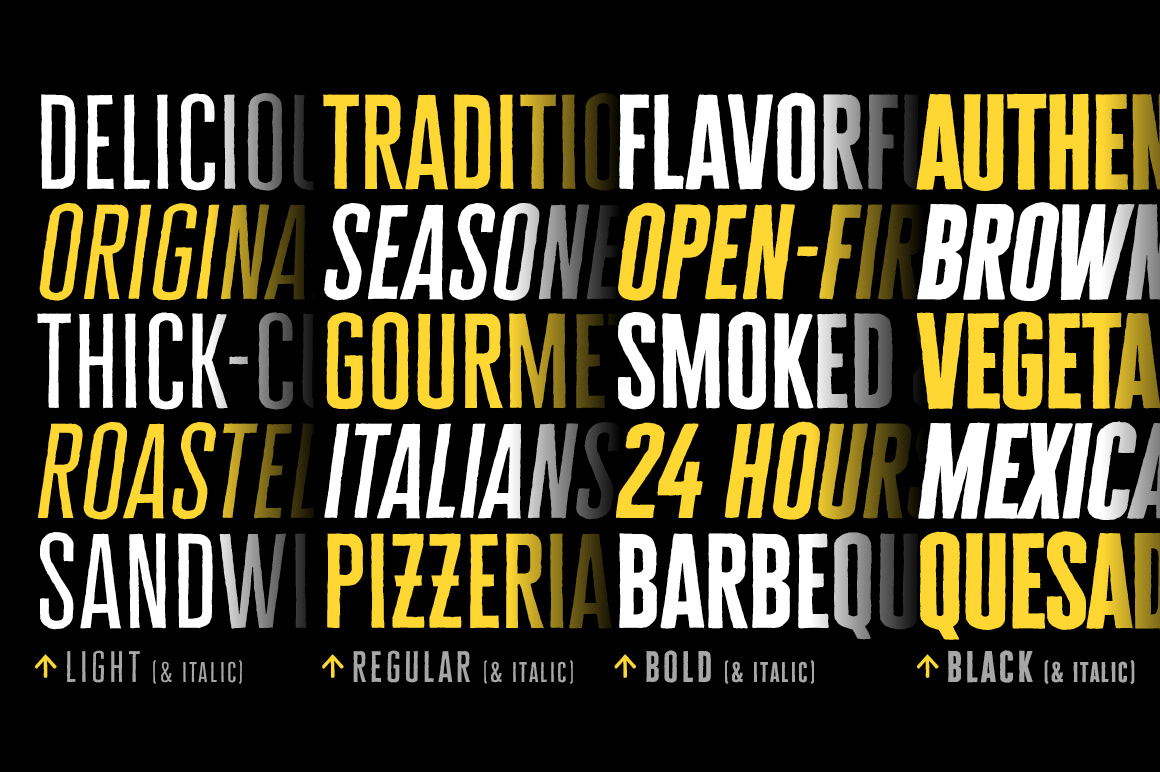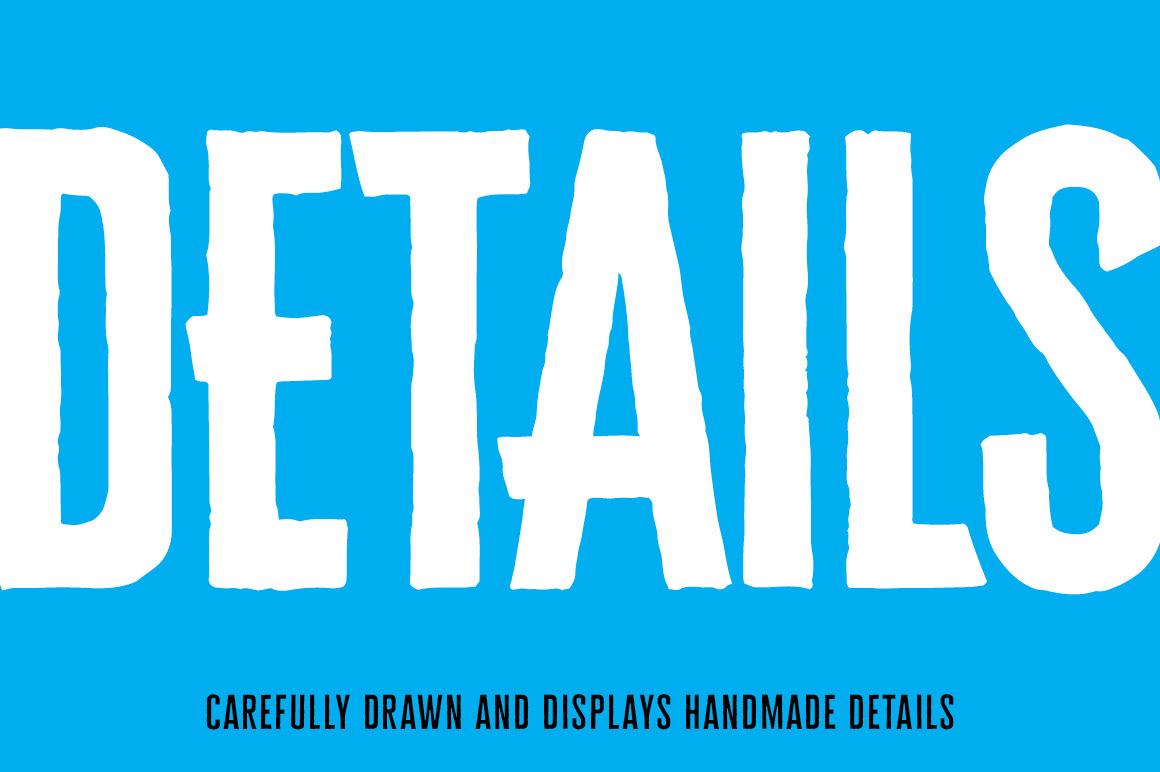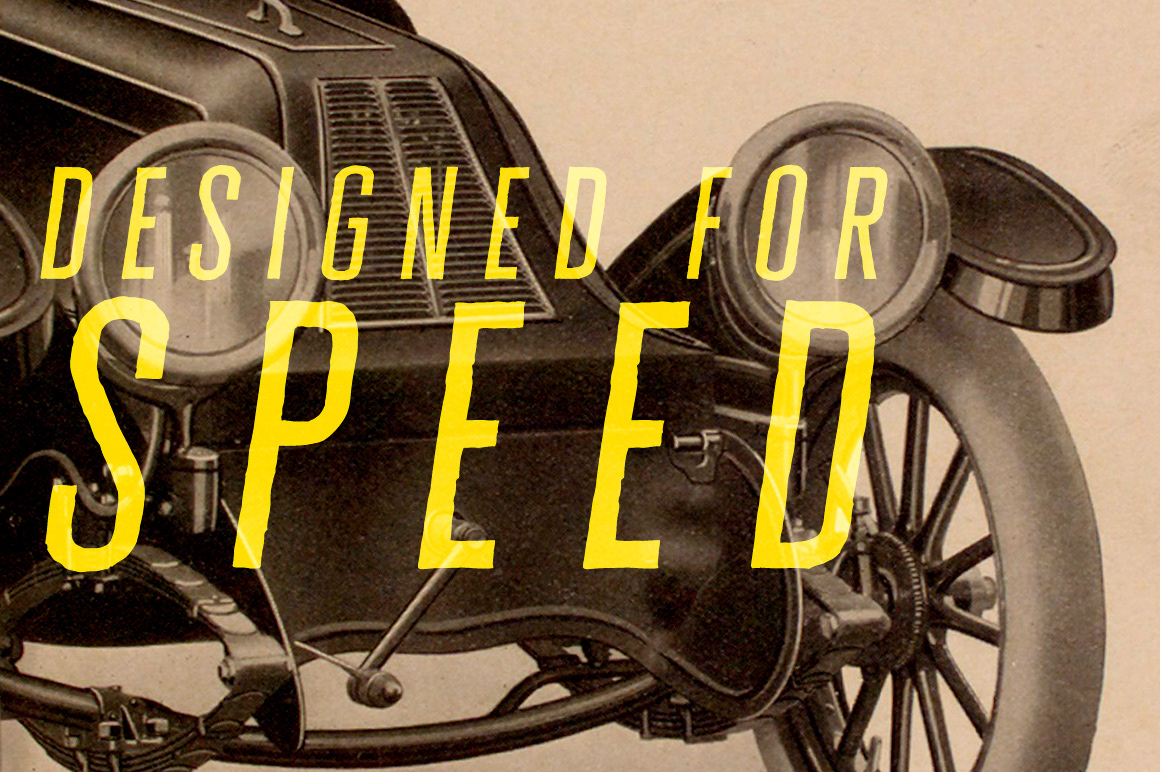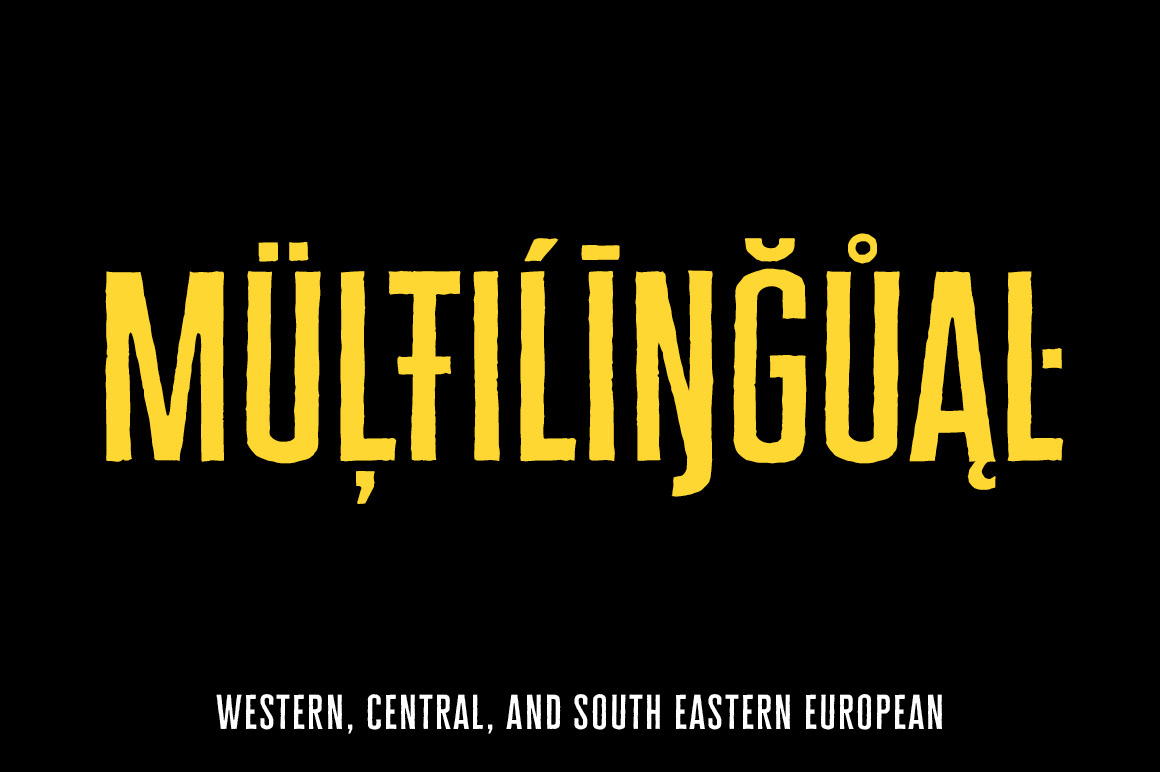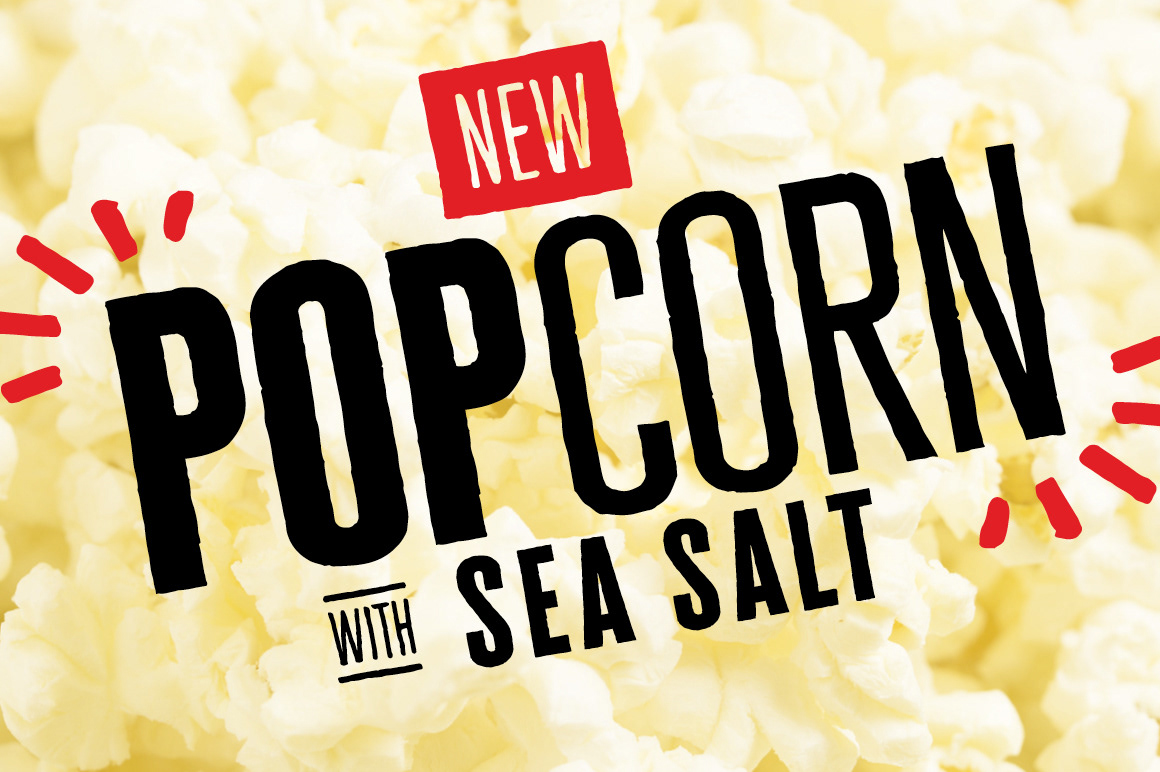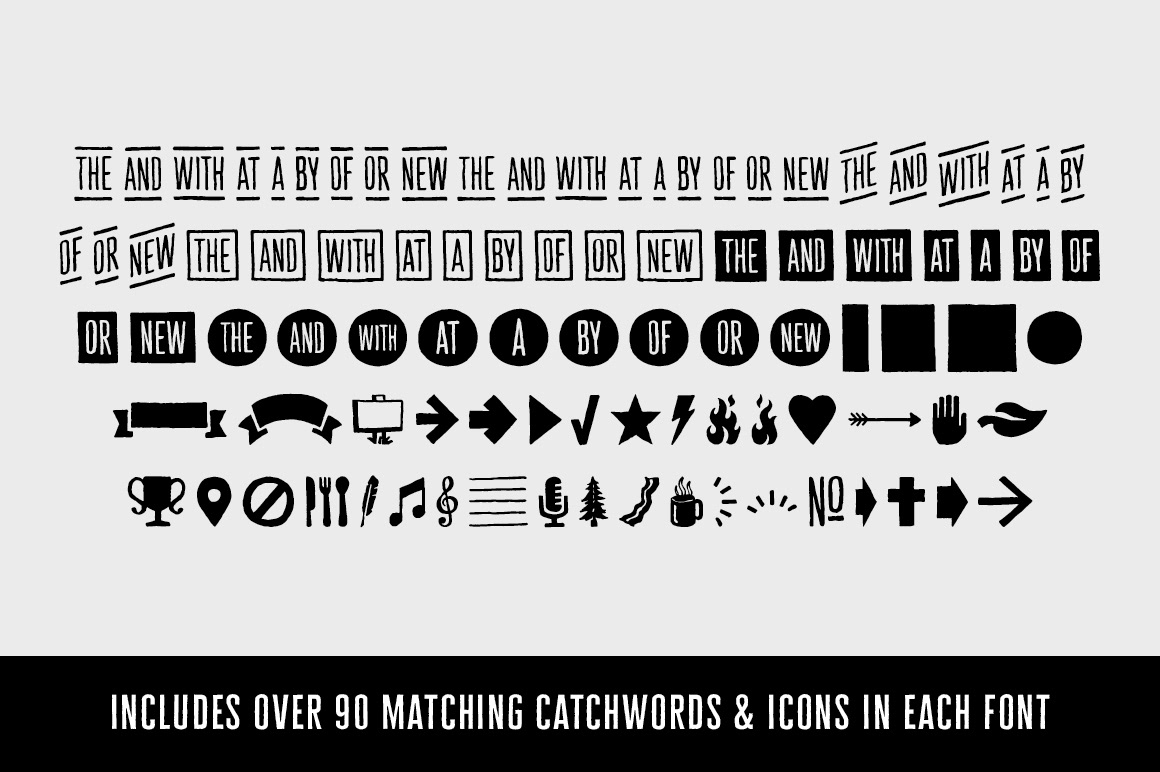
Cheddar Gothic Sans Two is a hand-drawn, multi-weight display font family. An all-caps, sans serif typeface with condensed proportions.
The uppercase characters add distinction with extended crossbars and chiseled terminals, while the lowercase provides a more classic sans serif appearance. Mix and match the weights for contrast.